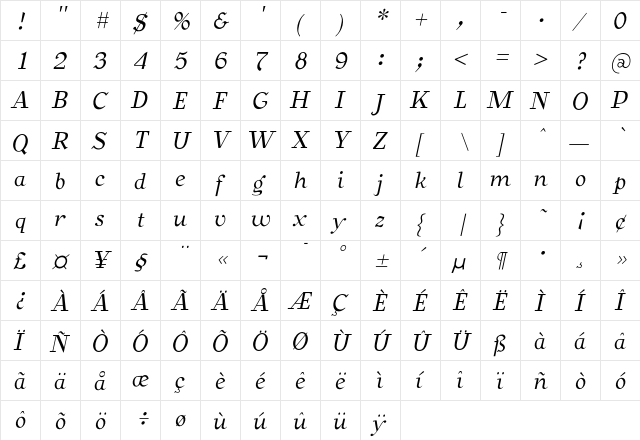
SafranItalic Regular
Design Context for SafranItalic Typeface
SafranItalic takes a measured approach to typography — its balanced proportions and neutral character make it a reliable workhorse for both digital and print work. The slanted form adds forward momentum and visual energy.
Pro Tip: Use SafranItalic for emphasis, pull quotes, and subheadings where its slanted energy can add rhythm to the layout.